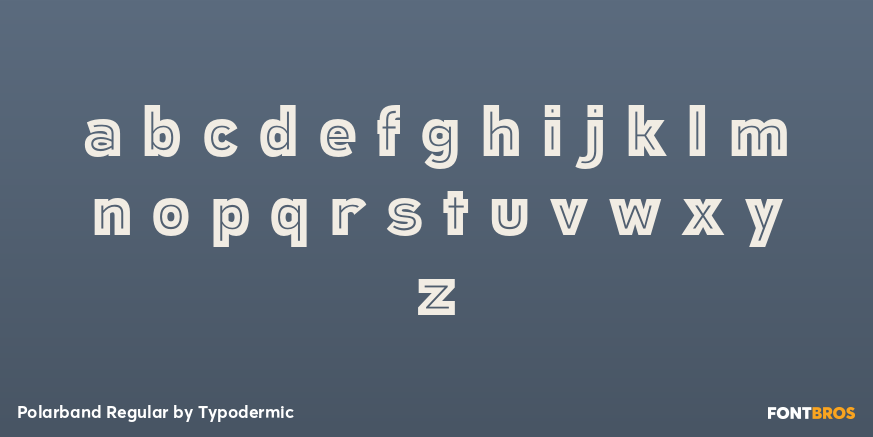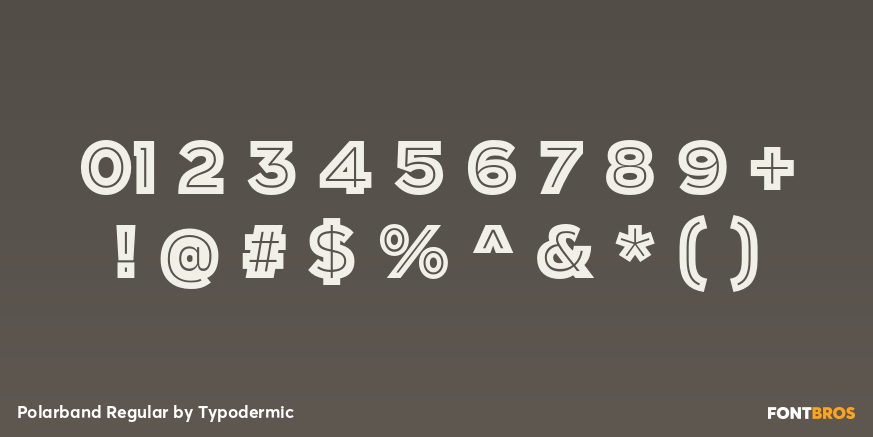
Polarband Regular
Buy NowA vintage display face can make a great logo. Trouble starts when that logo has to become a brand. The same lettering suddenly needs flavor names, seasonal editions, campaign headlines and changing color schemes; a decorative alphabet that worked beautifully for five capitals may have nowhere else to go. Polarband turns an early twentieth-century inline idea into a practical mixed-case identity system.
Its broad geometric forms combine substantial letter bodies with fine interior lines. Polarband consists of Regular, Back and Front; the separated components let the main body and inline treatment be colored and combined independently. A full lowercase extends the same visual language into product names, short descriptors and promotional copy rather than confining it to badges and all-cap titles.
That flexibility is especially useful for product ranges built around changing varieties. Premium soft drinks, confectionery, ice cream, coffee products and snack lines often need one recognizable identity across flavors, seasonal releases and limited editions. Polarband lets color change from one SKU to the next while the underlying letterforms remain constant. A quiet companion family can handle ingredients and longer copy; Polarband carries the expressive layer across the range.
Heritage brands face a similar problem. Referencing older commercial lettering can easily slip into fake aging and predictable nostalgia. Polarband’s historical character comes from its proportions and inline construction rather than simulated wear, allowing it to take crisp, saturated and contemporary color combinations. Revived consumer brands, anniversary programs and heritage merchandise collections can acknowledge the past without pretending the new work was printed decades ago.
Restored cinemas, food halls, resorts and entertainment venues can use Polarband in the same way, carrying a decorative identity through event titles, merchandise and seasonal campaigns. The separate Front and Back components also translate naturally into motion graphics, where the layers can be revealed, recolored or animated independently for venue screens, digital advertising and product launches.
Polarband is most useful when historical display character has to survive beyond the hero wordmark. Its mixed-case alphabet gives the identity more language to work with; its layered construction lets color and treatment change without losing the structure that made the name recognizable.